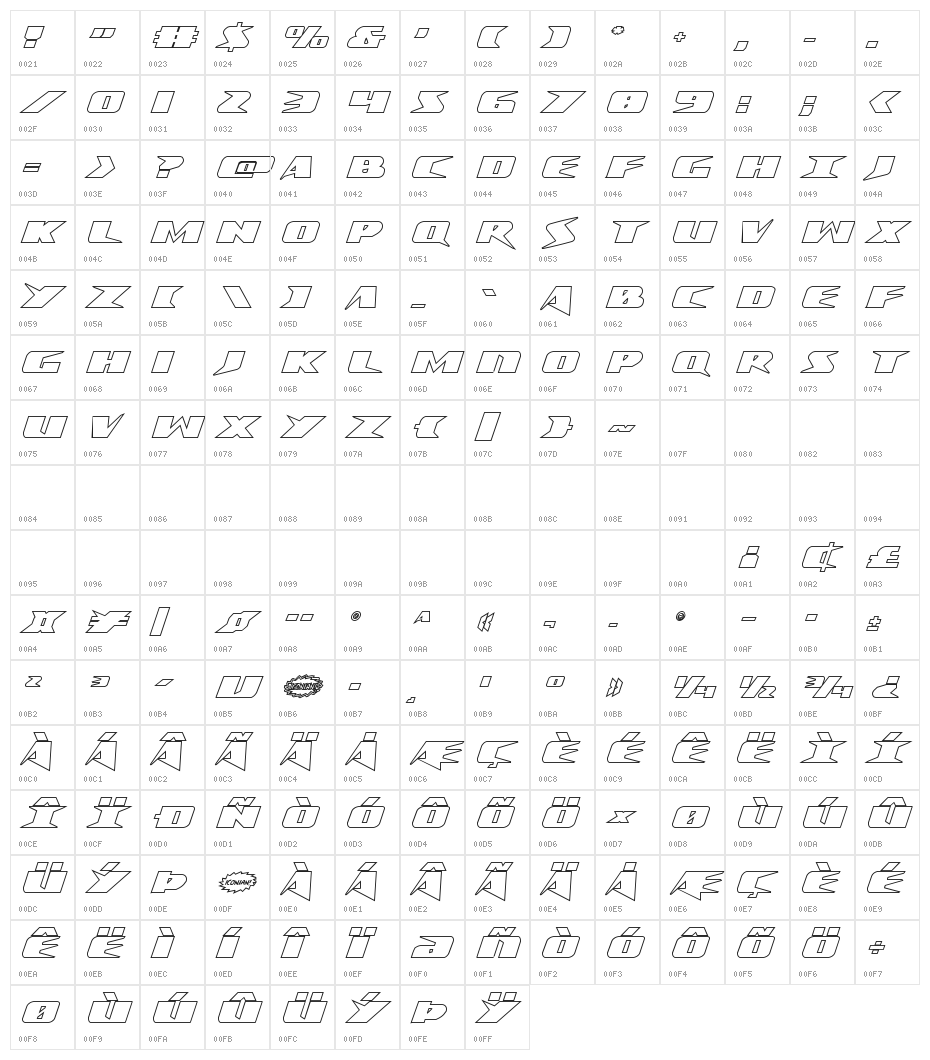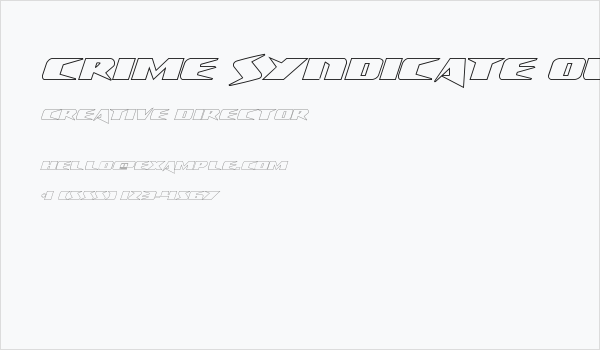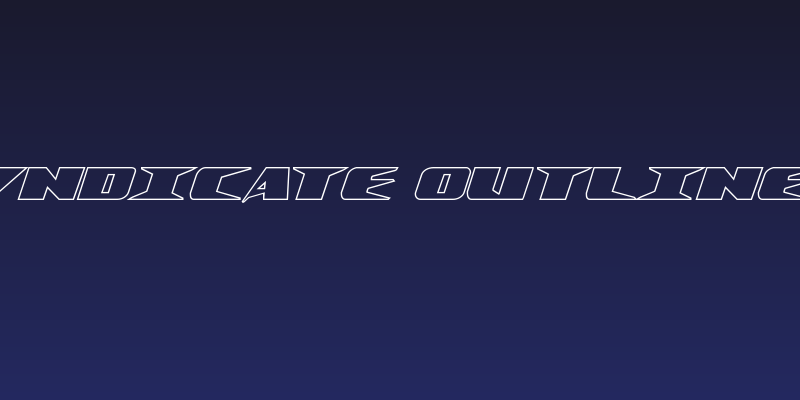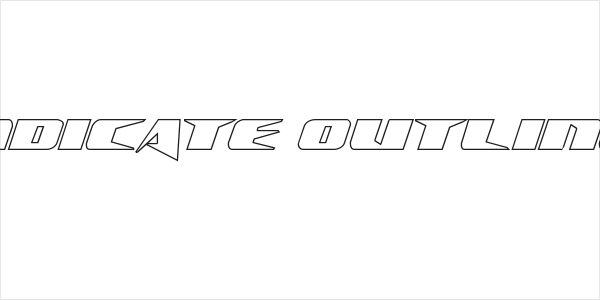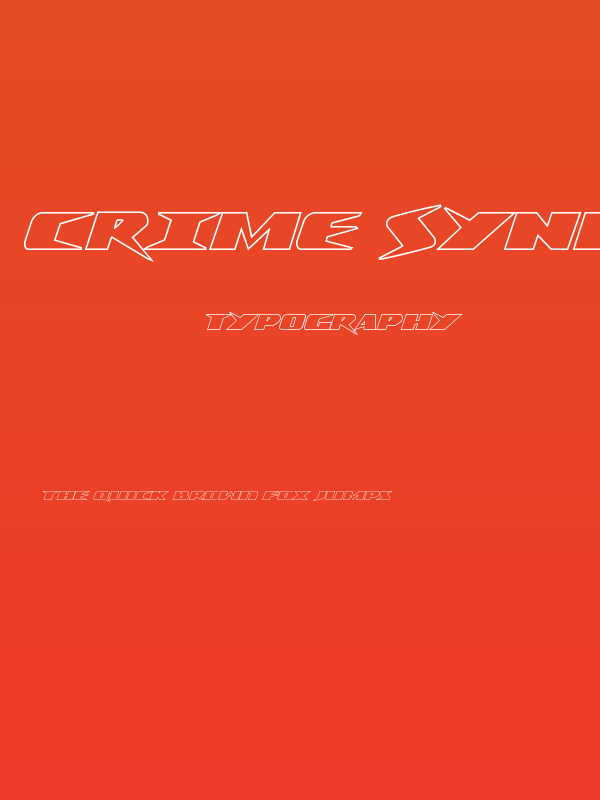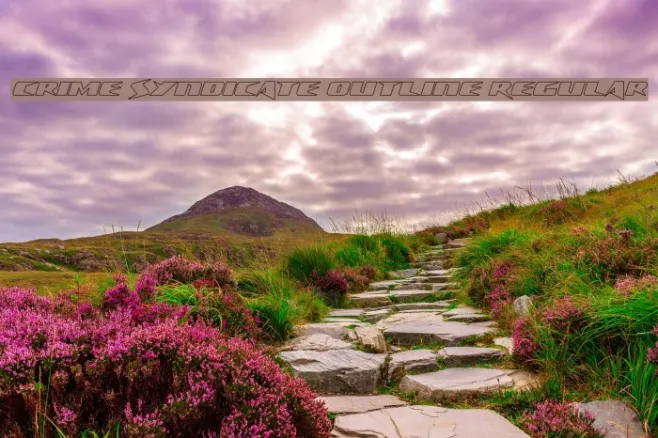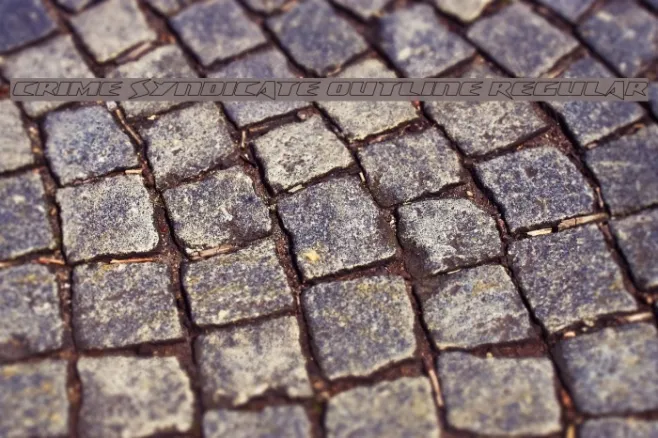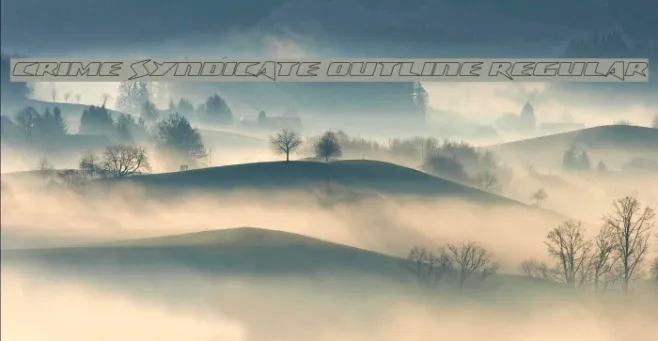
Crime Syndicate Outline Regular Font
Crime Syndicate Outline Regular Description
This font features a bold, angular design with a distinct outline style that gives it a futuristic and edgy appearance. The characters are sharply defined with geometric shapes, creating a sense of movement and dynamism. The uppercase and lowercase letters maintain a consistent style, with the lowercase mirroring the uppercase in form. Numbers and special characters follow the same design principles, ensuring uniformity across all glyphs. The outline nature of the font adds a layer of complexity, making it stand out in any design project.
| Overall Style | Futuristic, Edgy |
| Proposed Projects | Ideal for sci-fi themed projects, video game titles, posters, and branding that requires a modern, edgy look. |